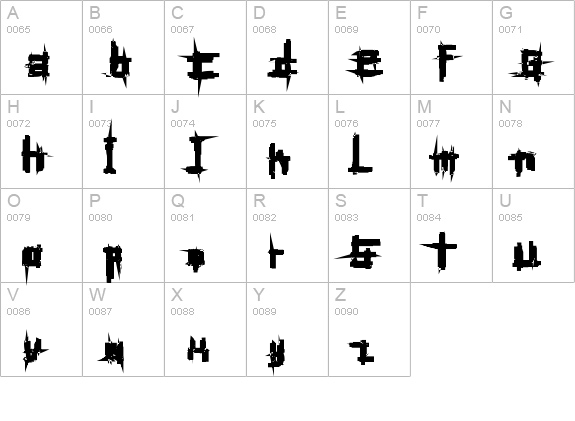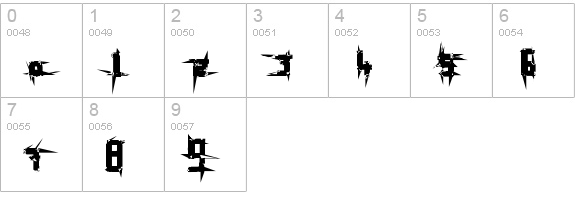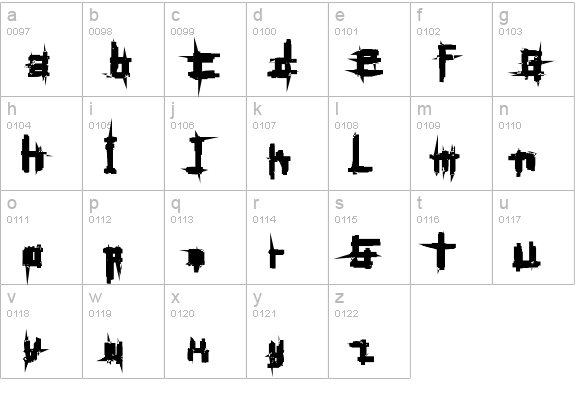
Bruised Hundred Font Details
Introducing Bruised Hundred font, a unique and edgy typeface that exudes character and attitude. With its rough and rugged appearance, this font is perfect for creating bold and impactful designs that demand attention. The Bruised Hundred font features a distressed look, as if it has been through battles and emerged stronger than ever. This versatile font is suitable for a wide range of design projects, from posters and flyers to logos and branding. Its bold and grungy style adds a touch of rawness and authenticity to any design, making it stand out from the crowd. Best of all, Bruised Hundred font is available for free download at FontsMarket.com. So go ahead and unleash your creativity with this unique and eye-catching typeface. Let Bruised Hundred font add a touch of rugged charm to your next design project.